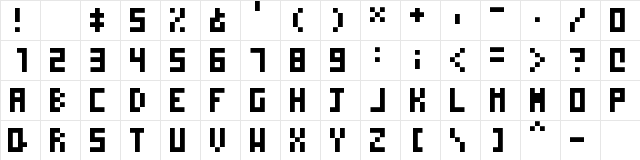
3x5 MT Pixel regular
Design Context for 3x5 MT Pixel
3x5 MT Pixel is rooted in pixel-grid construction, making it a natural fit for game UI, retro computing aesthetics, and digital nostalgia projects.
Pro Tip: Use 3x5 MT Pixel at sizes that align with its pixel grid for the sharpest rendering - scaling to non-integer multiples can introduce unwanted blur.